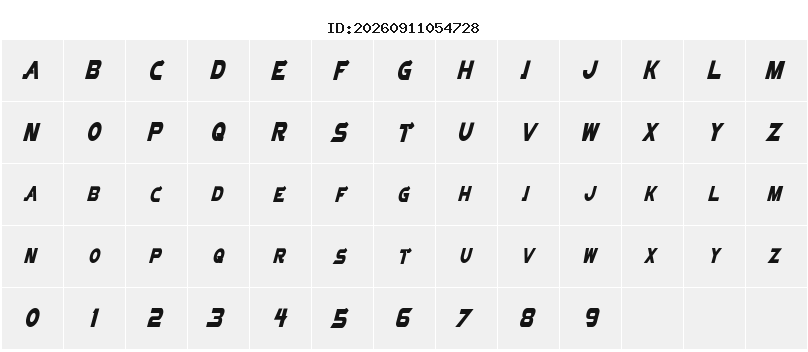
• Font Name: Vector Sigma Condensed
• Font ID: Vector Sigma Condensed Italic:Version 1.00
• Full Font Name: Vector Sigma Condensed Italic
• Version: Version 1.00 April 23, 2013, initial release
• PostScript Name: VectorSigmaCondensed-Italic
• Designer: Neale Davidson
About Vector Sigma Condensed.ttf
Vector Sigma Condensed.ttf is a modern, elegant sans-serif font designed for ultimate readability and visual harmony. Perfect for branding, headlines, web design, and print materials.